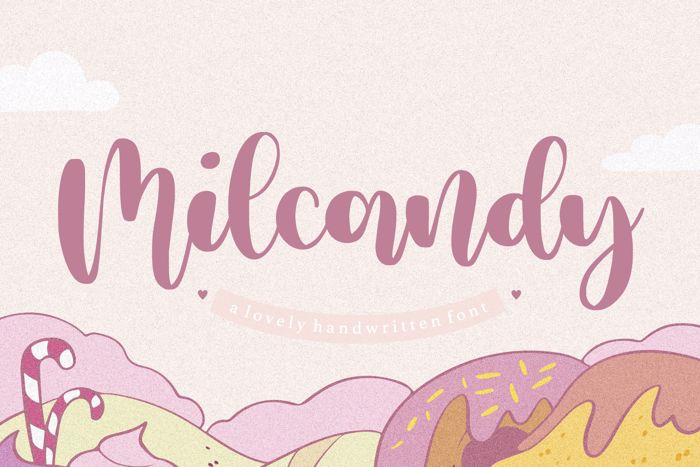
Milcandy Font
Proudly Present, Milcandy Font.
Milcandy is a Lovely Handwritten font.
Milcandy is perfect for product packaging, branding project, megazine, social media, wedding, or just used to express words above the background.